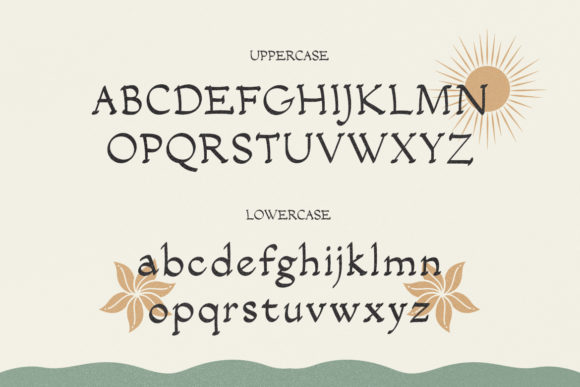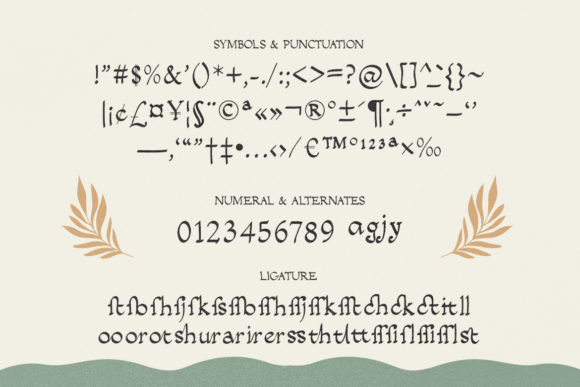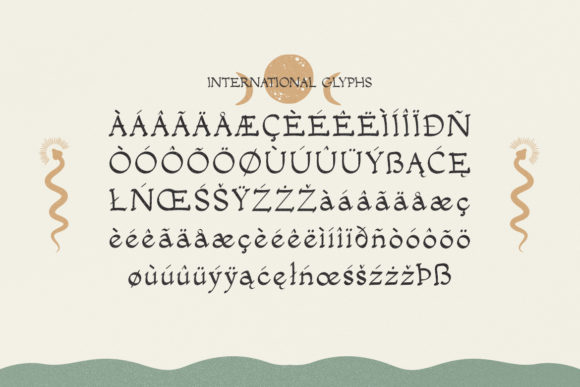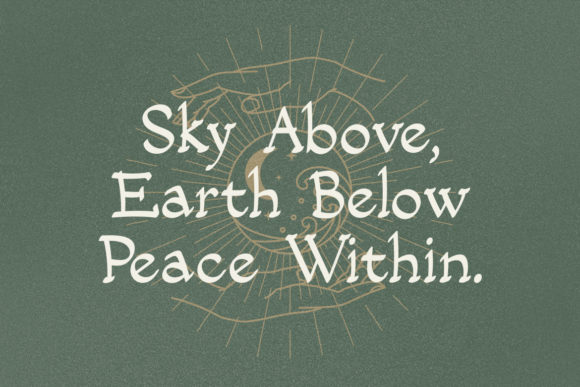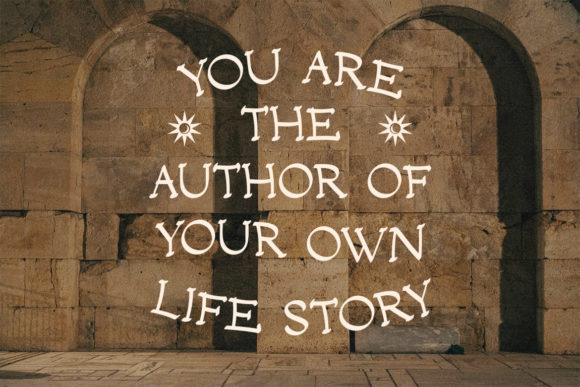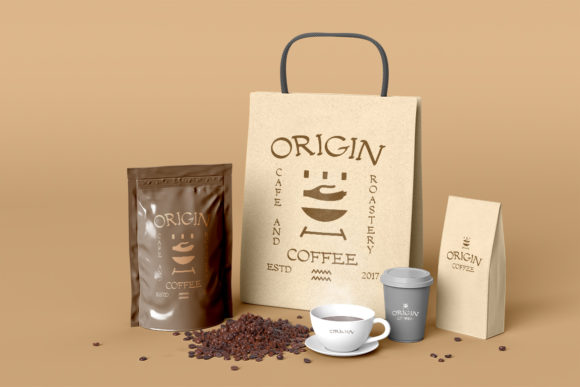
Introduction to Salacia Font
Salacia is a modern serif font.
Elegantly crafted and whimsical, this font can be matched to an incredibly large set of projects Use Salacia to achieve an exquisite, yet subtle look and maximum versatility.